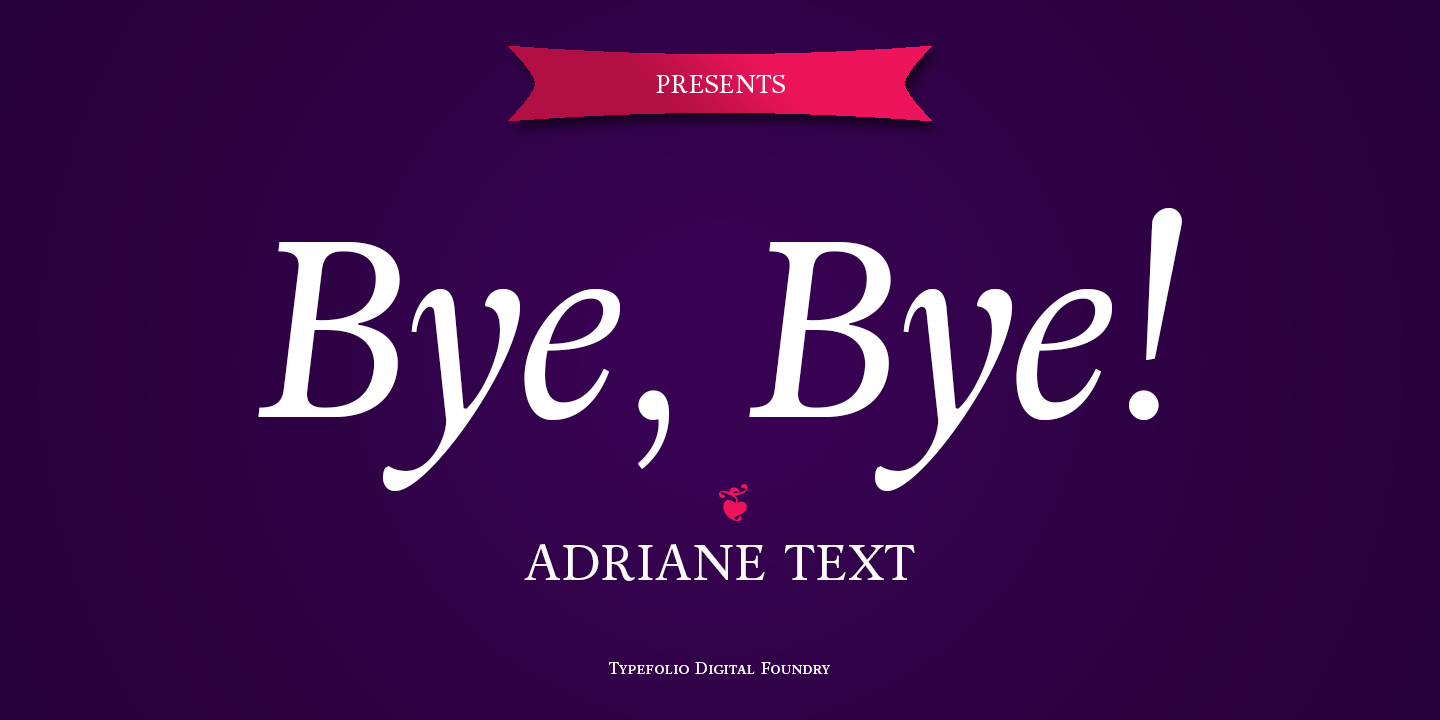
The Adriane Text Font is incredibly versatile, making it an outstanding choice for a wide range of design projects where clarity, readability, and a contemporary aesthetic are paramount. Imagine it providing a clean and approachable voice for extensive articles in online magazines, ensuring effortless reading for educational textbooks, or giving a polished look to corporate documents and reports. It's also perfect for crafting user-friendly website content, designing intuitive app interfaces, or enhancing the legibility of e-books and digital publications. Its balanced proportions, clear forms, and often subtle humanist touches make it ideal for anything that requires sustained reading, ensuring a comfortable and engaging experience for your audience.
What makes the Adriane Text Font so exciting is its ability to effortlessly blend professional elegance with exceptional functionality. It's not just a typeface; it’s a workhorse designed for optimal performance in long-form text, making it a staple for serious designers. Its meticulously crafted letterforms, often featuring generous x-heights and open counters, contribute to its superb legibility, even at smaller sizes. In a world saturated with digital content, this font stands out by offering a harmonious balance between aesthetic appeal and practical readability, ensuring your message is not only seen but truly absorbed with ease and clarity.
The Adriane Text Font family typically includes a comprehensive range of weights and styles to provide maximum flexibility for designers. While specific variations can differ, you can often expect to find light, regular, medium, semi-bold, bold, and even extra-bold versions, along with corresponding italic styles. This extensive array of options allows for sophisticated typographic hierarchies and ensures the font can adapt seamlessly to various design needs, from subtle footnotes to prominent subheadings, offering unparalleled versatility for both print and digital applications.